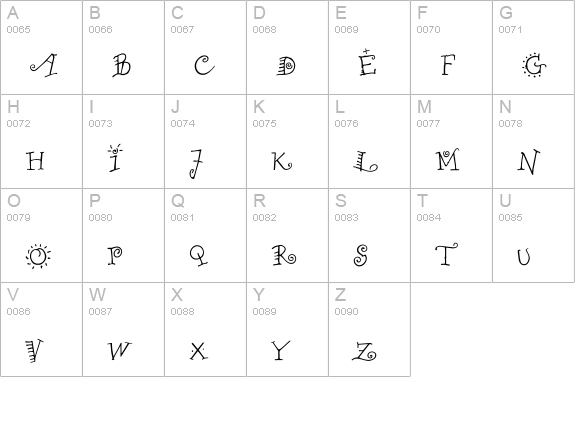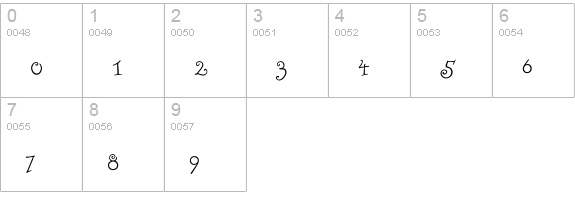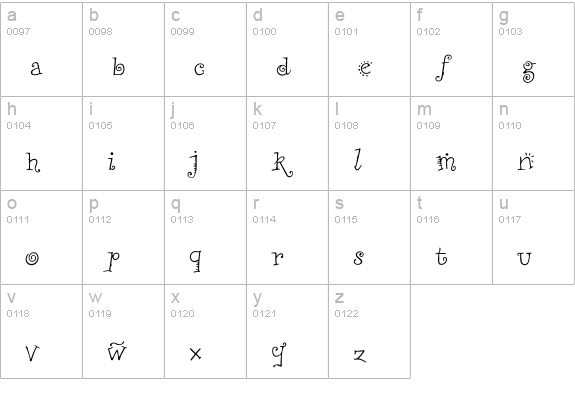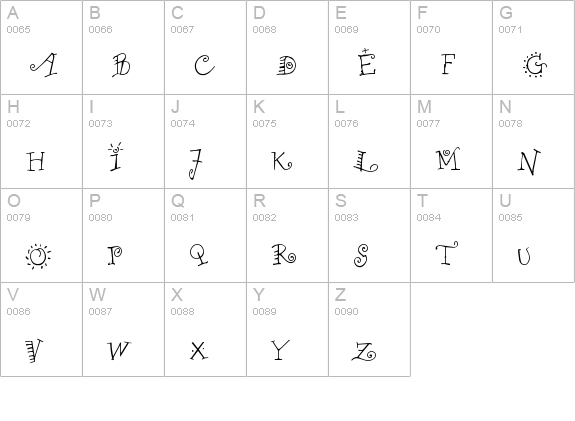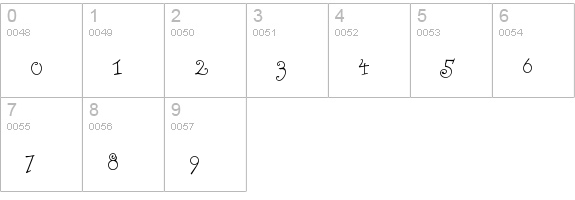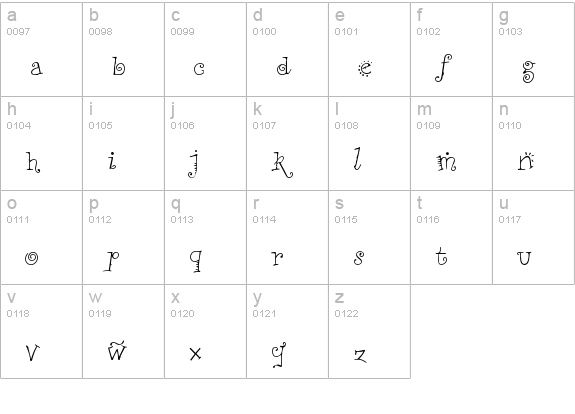
Chili Pepper Font Details
Introducing Chili Pepper font, a fiery and bold typeface that adds a spicy flair to any design project. This unique font is perfect for making a statement and standing out from the crowd. With its sharp edges and dynamic curves, Chili Pepper font captures attention and brings a touch of heat to your creations. Best of all, Chili Pepper font is available for free download exclusively at FontsMarket.com. Whether you're looking to add a touch of zest to your branding, packaging, posters, or social media graphics, this font is the perfect choice. Embrace the boldness of Chili Pepper font and let your designs sizzle!